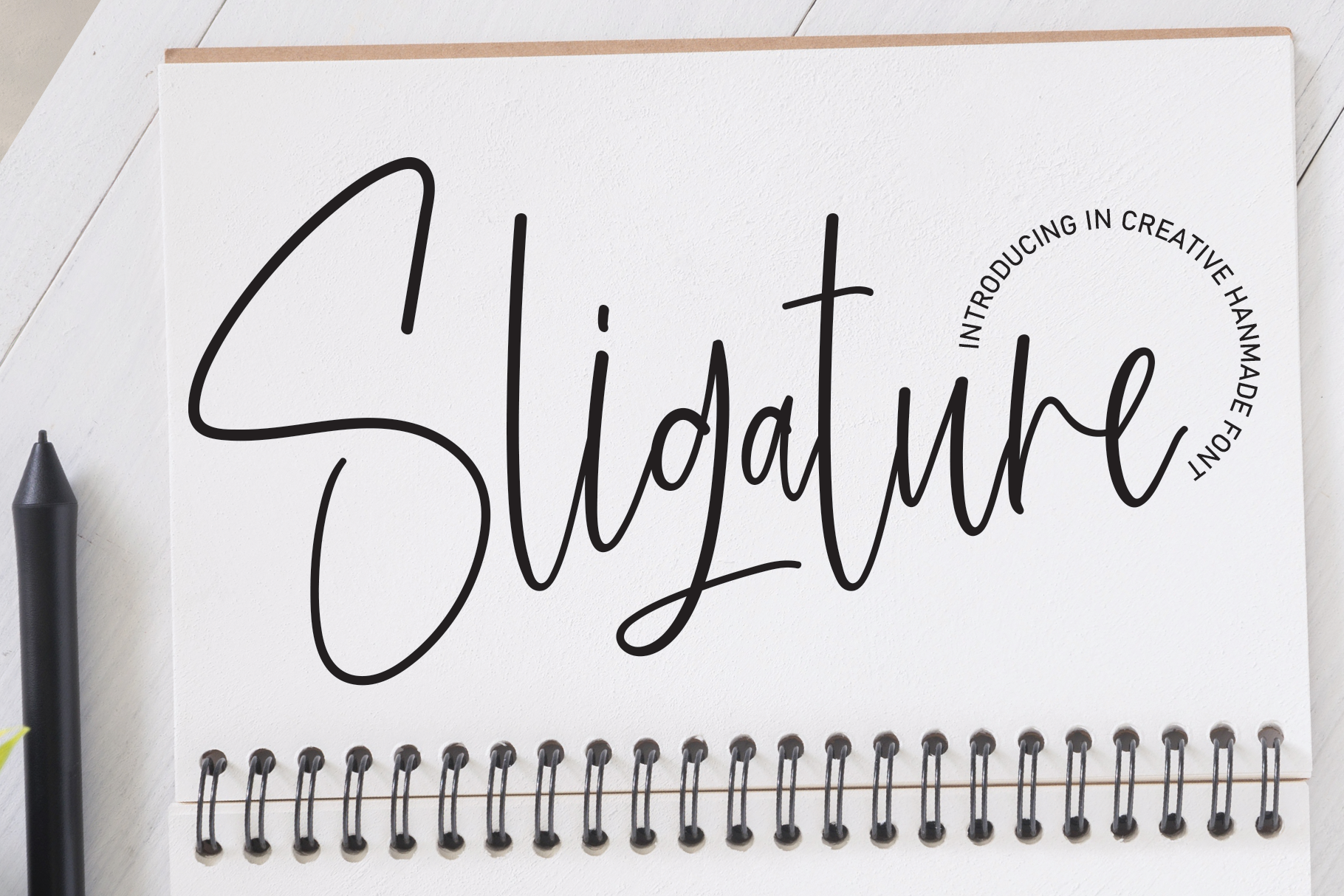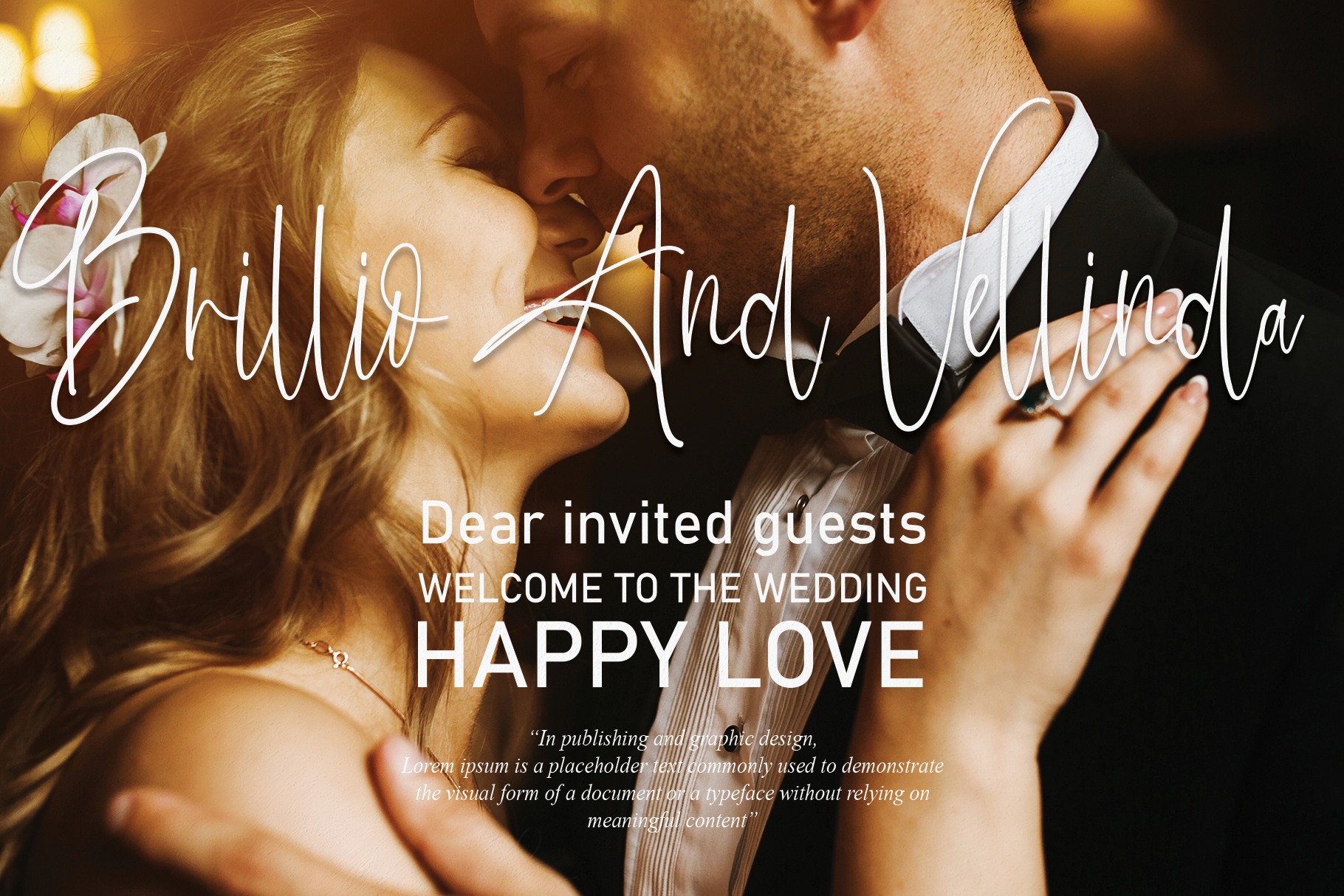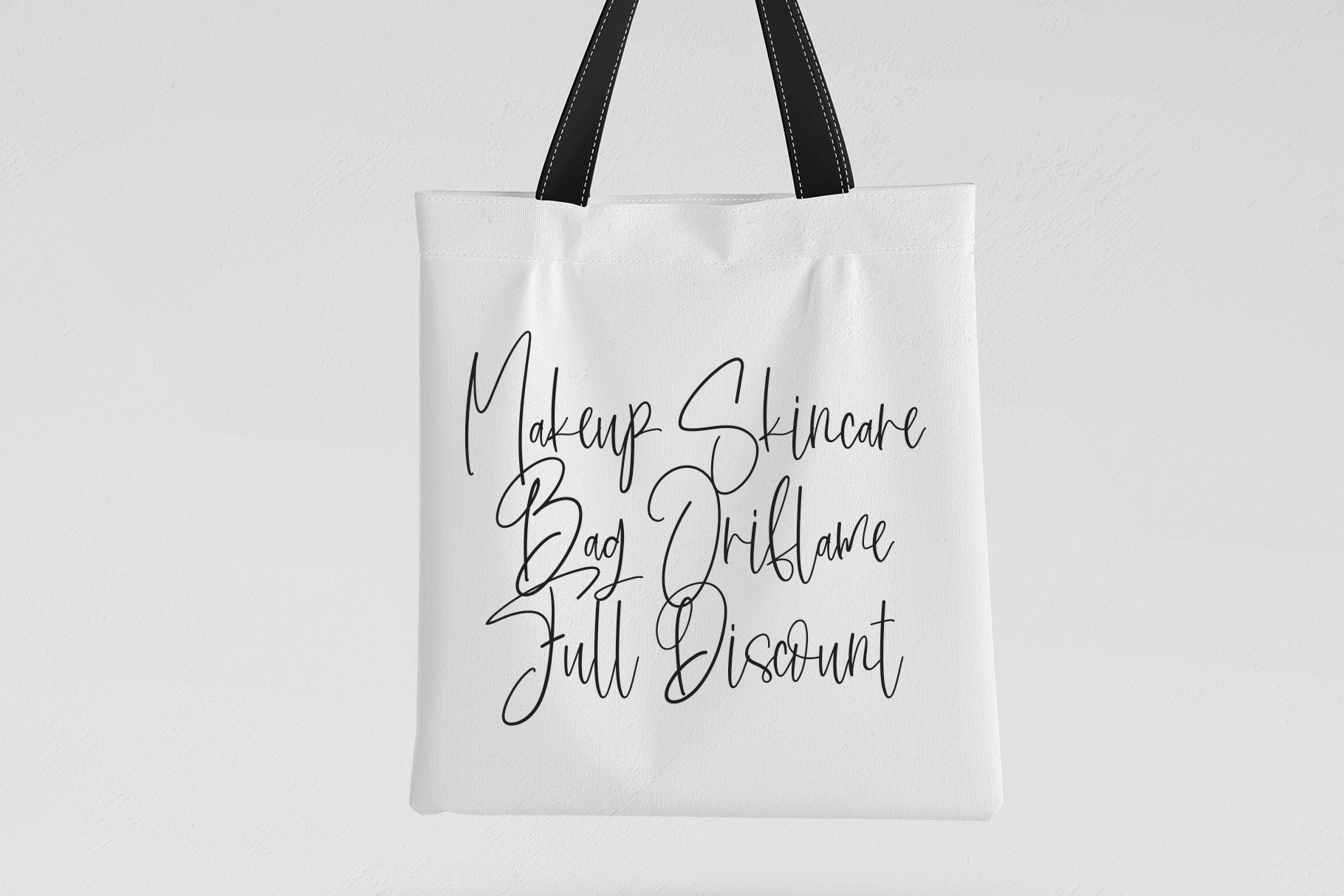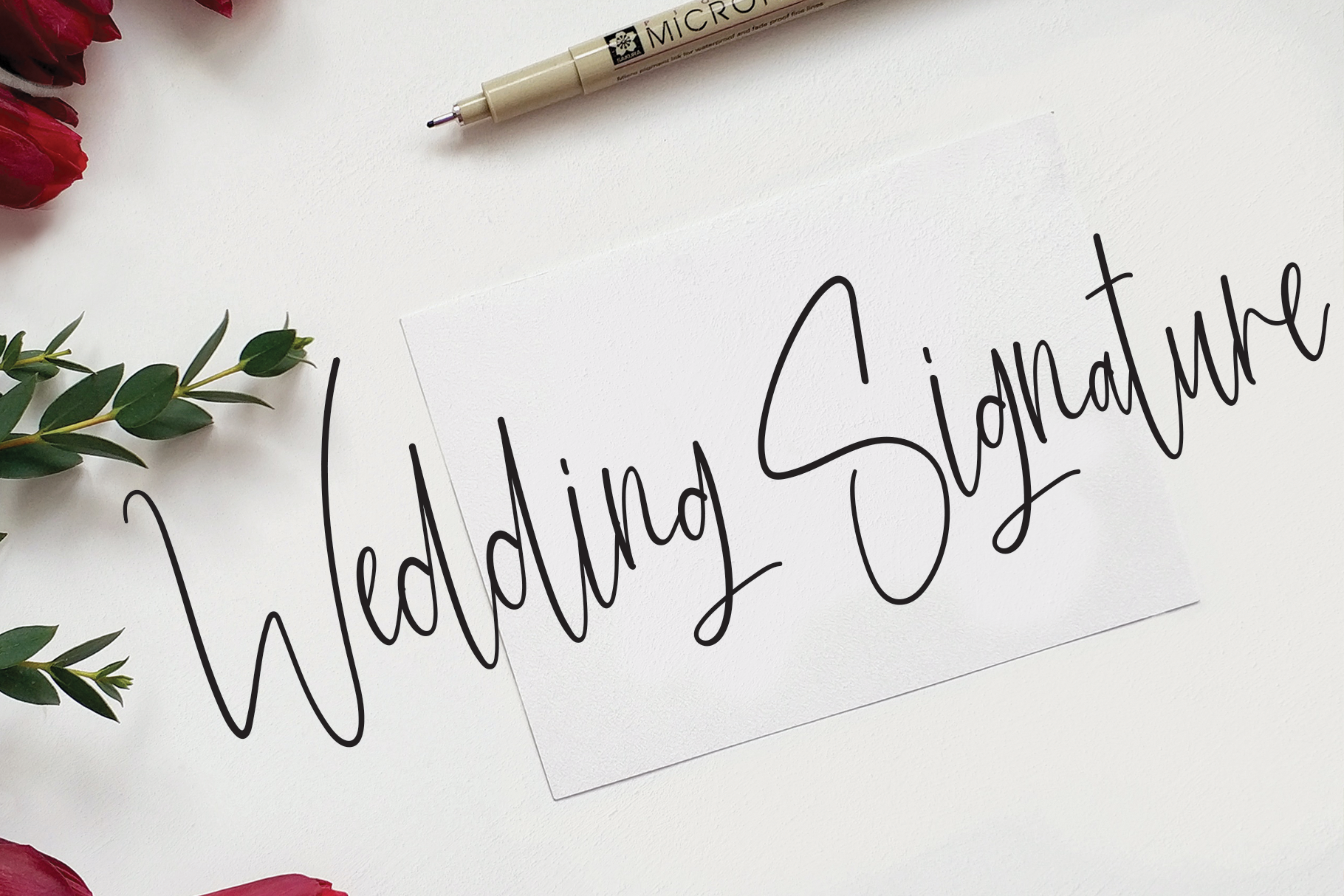
Sligature Font
Sligature Script Font
This is a fashionable and delicate script font. It is suitable for book texts, documentation, business reports, business correspondence, magazines, newspapers, posters, advertisements, multimedia, and corporate design.
the latest style letters are perfect for wall displays, wedding invitations, social media post logos, advertisements, product packaging, product designs, labels, photography, watermarks, invitations, stationery, and any project that requires taste handwriting.